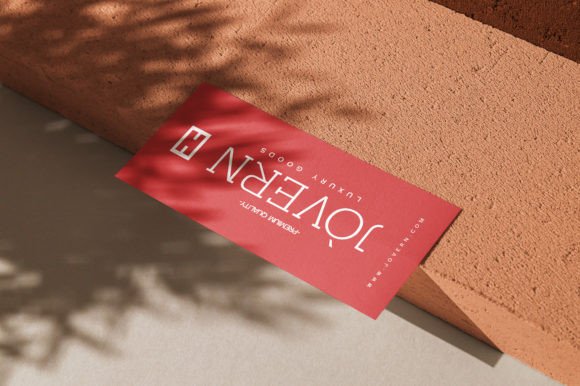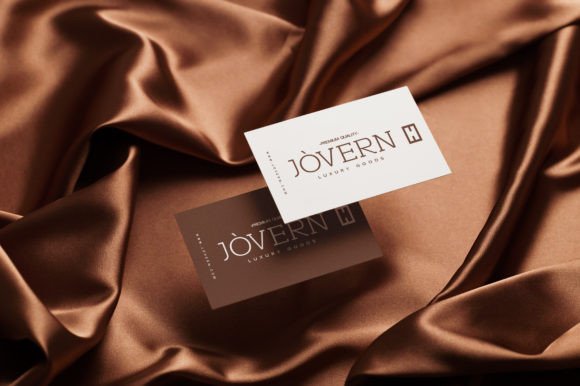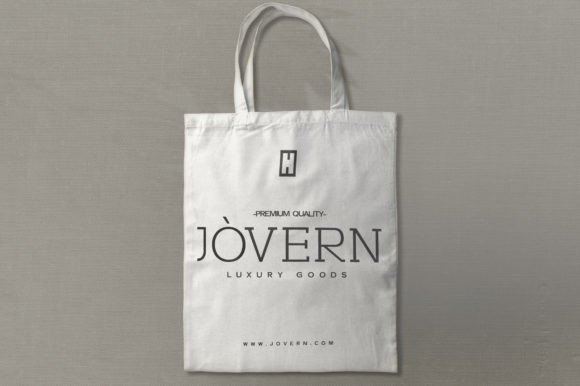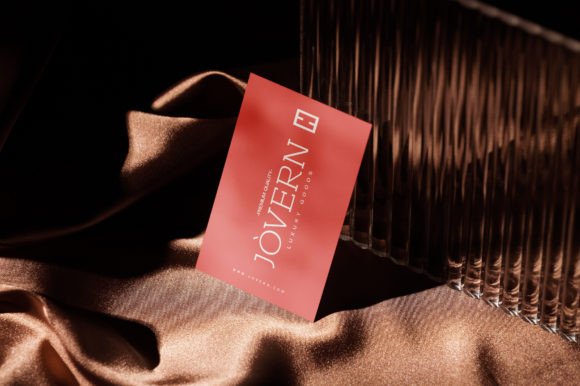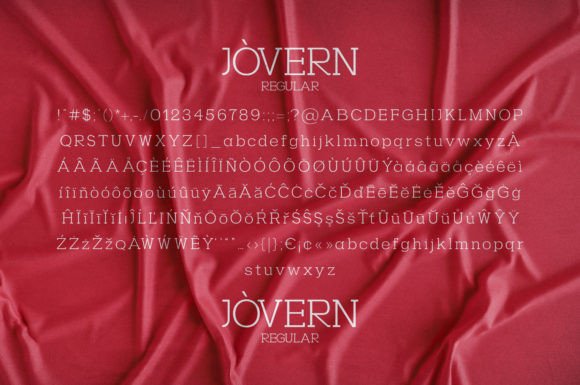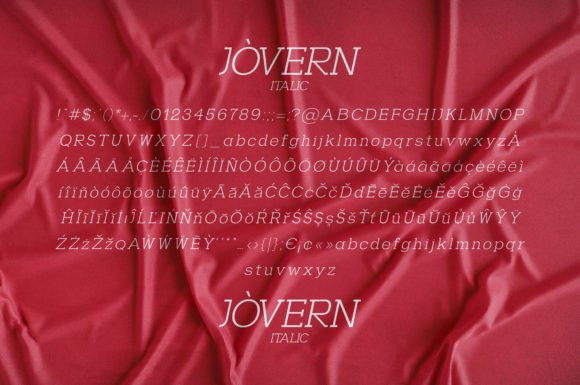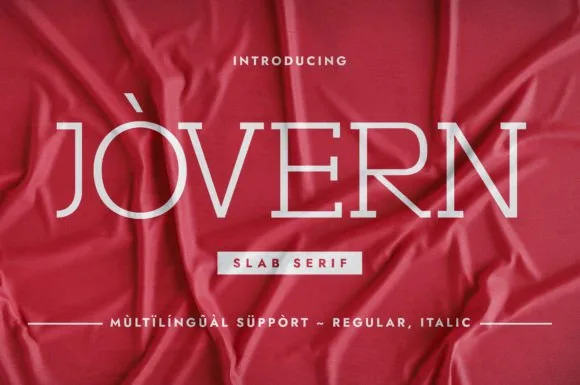
Jovern
Jovern: An Elegant and Stylish Slab Serif Font
Jovern is an elegant, chic and stylish slab serif typeface that adapts wonderfully to fashion and luxury-oriented designs. This versatile font brings sophistication to various applications, from perfume labels to magazine covers.
Key Features of Jovern
• Elegant Design: Offers refined and sophisticated letterforms.
• Chic Style: Brings fashion-forward appeal to designs.
• Stylish Character: Features contemporary sophistication.
• Versatile Application: Adapts well to luxury contexts.
Best Uses for Jovern
Thanks to its elegant characteristics, Jovern works especially well for:
When using Jovern in your designs, keep these tips in mind:
• Try it for headlines or display text to showcase its elegant style.
• Use different sizes to highlight its chic features.
• Let its stylish character enhance fashion-related projects.
• Take advantage of its versatility for luxury applications.
To sum up, Jovern is an excellent choice for designers seeking an elegant and stylish slab serif font. Its unique characteristics make it perfect for projects that need a touch of sophistication. Whether you’re creating cosmetic labels, designing magazine covers, or developing fashion-related materials, Jovern offers the perfect blend of elegance and style.
Furthermore, Jovern’s distinctive design allows it to shine in contexts where both sophistication and modernity are key. For instance, from luxury packaging to social media content, this font can elevate your projects with its refined style. Also, its chic yet readable appearance works particularly well in designs that aim to make a fashionable impact.
In conclusion, Jovern truly captures the essence of elegant design in slab serif typography. Its adaptability across different applications shows how quickly it can become a favorite tool for creative expression. Therefore, for those wanting to add a touch of sophistication to their work, Jovern can transform any design with its distinctive style. Ultimately, it’s perfect for designers aiming to make an elegant, fashion-forward impact across luxury and lifestyle projects.